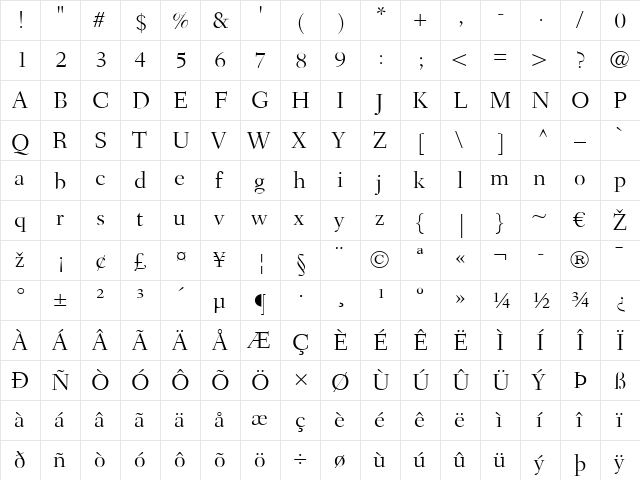
Fairfield LT Light Regular
Design Context for Fairfield LT Light Typeface
Fairfield LT Light takes a measured approach to typography — its balanced proportions and neutral character make it a reliable workhorse for both digital and print work. Its slender proportions lend an understated elegance to any composition.